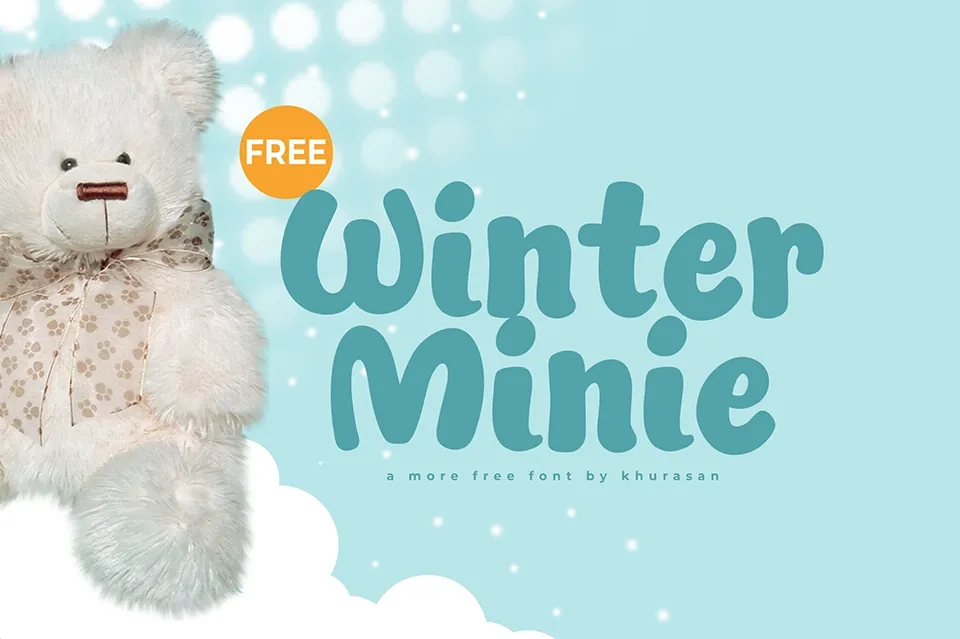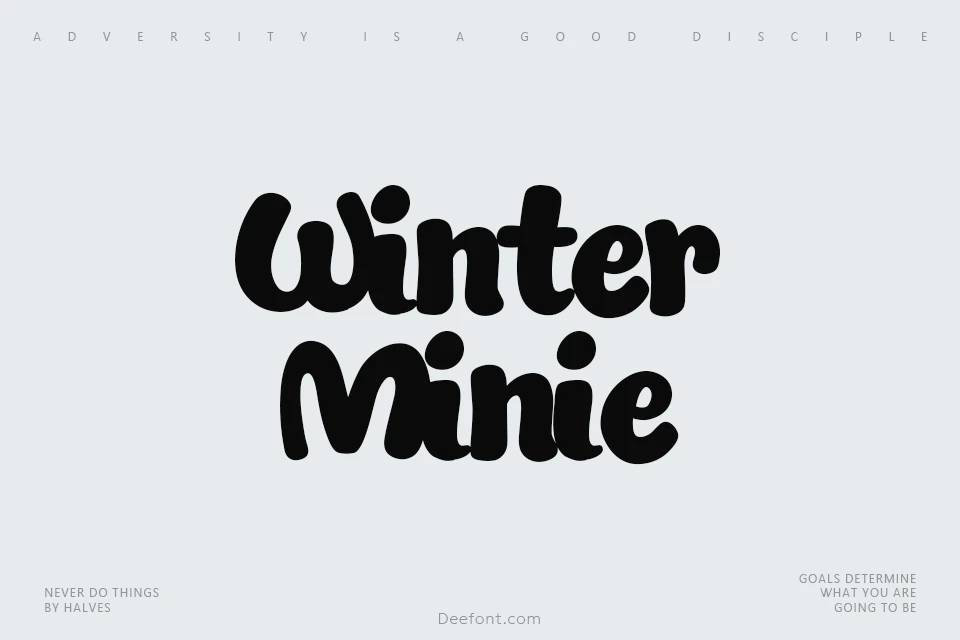
Winter Minie Font
Winter Minie Font is a delightfully playful hand-drawn cartoon typeface that exudes charm and personality. Created by Khurasan, this typeface features rounded, bubbly characters with a friendly and approachable style. The font’s cheerful, slightly uneven strokes and bold cartoonish design create a sense of fun and whimsy that instantly captivates the eye. Its thick letters and warm aesthetic make it perfect for creative projects, invitations, and festive designs. Winter Minie is available as a free font for both personal and commercial use, making it an accessible choice for designers seeking to add a touch of casual elegance to their work.